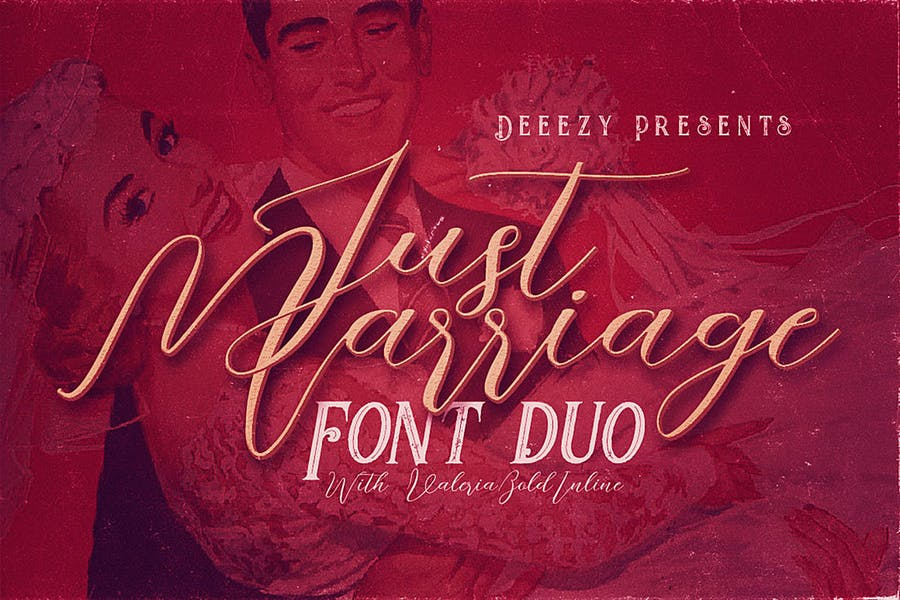
Just Marriage Font Duo
Just Marriage Font Duo is perfect for romantic wedding invitations, elegant engagement announcements, bridal boutique branding, love-themed greeting cards, wedding planner materials, matrimonial event signage, romantic restaurant menus, anniversary celebrations, honeymoon resort marketing, and intimate ceremony programs.
Just Marriage Font Duo creates excitement because it masterfully captures the sacred beauty and romantic elegance of marriage with its perfectly paired typefaces that embody both timeless tradition and contemporary love. The font duo's complementary styles instantly convey the depth of commitment and joyful celebration that defines matrimonial union, making any design appear deeply meaningful and romantically sophisticated. Its carefully balanced contrast between classic elegance and modern romance creates an immediate emotional connection that resonates with couples seeking authentic expression of their love story and lifetime commitment.
The Just Marriage Font Duo family includes multiple weights and styles across both fonts: Script, Sans, Regular, Bold, Light, Medium, Italic, Flourished, Condensed, and Decorative versions. Each variant maintains the duo's signature romantic character while offering comprehensive design flexibility for sophisticated wedding systems requiring both traditional elegance and contemporary romance expression.
This enchanting typeface pair represents the perfect union of classic matrimonial typography with modern romantic design sensibilities. Just Marriage Font Duo Free Download provides wedding professionals and couples with access to premium dual typography that captures the essence of eternal love and sacred commitment. The font duo's romantic harmony and elegant balance make it ideal for creating memorable wedding experiences that celebrate the profound beauty of marriage and lifelong partnership. Whether you're developing comprehensive wedding identity systems, creating invitations for intimate ceremonies, designing materials for luxury wedding venues, or producing content for matrimonial service providers, this font duo delivers the romantic sophistication that resonates with couples seeking to express their unique love story through beautiful, meaningful design. Its versatile pairing ensures outstanding performance across both precious printed keepsakes and elegant digital communications while maintaining perfect harmony between traditional values and contemporary romance. The fonts excel in applications requiring emotional depth and matrimonial authenticity. Wedding industry professionals appreciate the duo's ability to convey sacred commitment while inspiring romantic celebration, essential qualities for creating unforgettable wedding experiences. The comprehensive character sets include romantic flourishes and extensive international language support, making it perfect for global wedding brands and international matrimonial services seeking to communicate authentic love, sacred commitment, and romantic elegance to diverse worldwide couples who cherish the timeless beauty of marriage, celebrate their unique love stories, and embrace the sacred journey of lifelong partnership filled with joy, devotion, and endless possibilities.